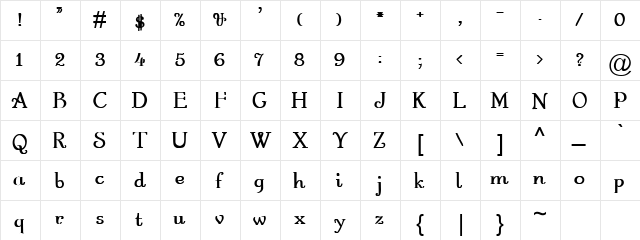
GARCON Normal
Design Context for GARCON Typeface
GARCON takes a measured approach to typography — its balanced proportions and neutral character make it a reliable workhorse for both digital and print work.